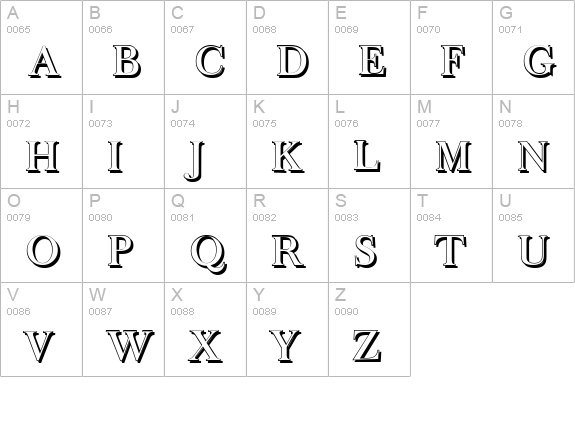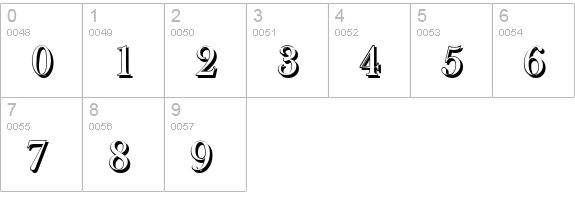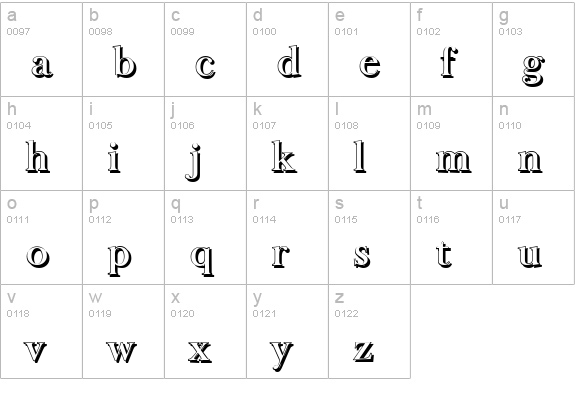
BaskerOldShadow-Medium-Regular Font Details
BaskerOldShadow-Medium-Regular is a balanced, medium-weight variant in the BaskerOldShadow typeface family \xE2\x80\x94 well suited to sub-headlines, navigation, and balanced editorial work.
BaskerOldShadow-Medium-Regular is a timeless and elegant font that exudes sophistication and charm. Its medium weight strikes the perfect balance between authority and approachability, making it suitable for a wide range of design projects. The subtle shadow effect adds depth and dimension to the text, creating a captivating visual impact. Best of all, BaskerOldShadow-Medium-Regular is available for free download at FontsMarket.com. Whether you are working on a professional project or a personal creation, this font will elevate your design with its classic yet modern aesthetic. Embrace the beauty of BaskerOldShadow-Medium-Regular and let your creativity shine.